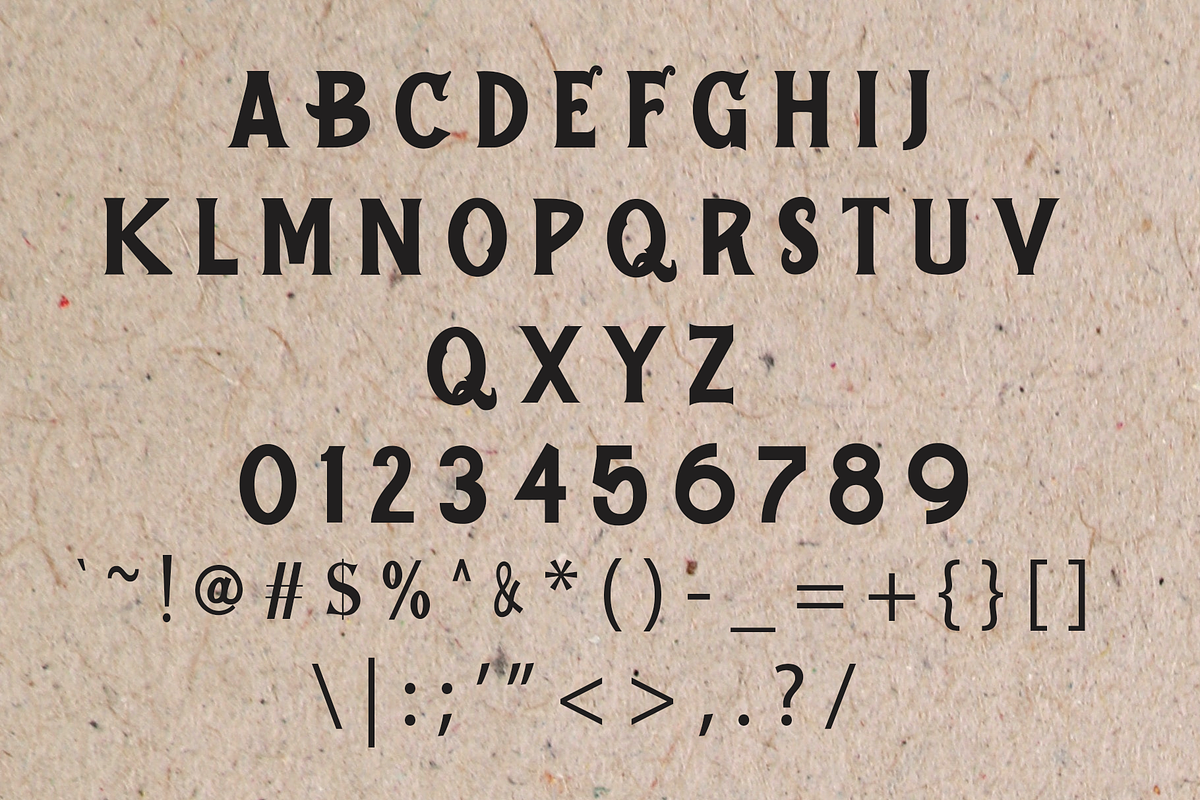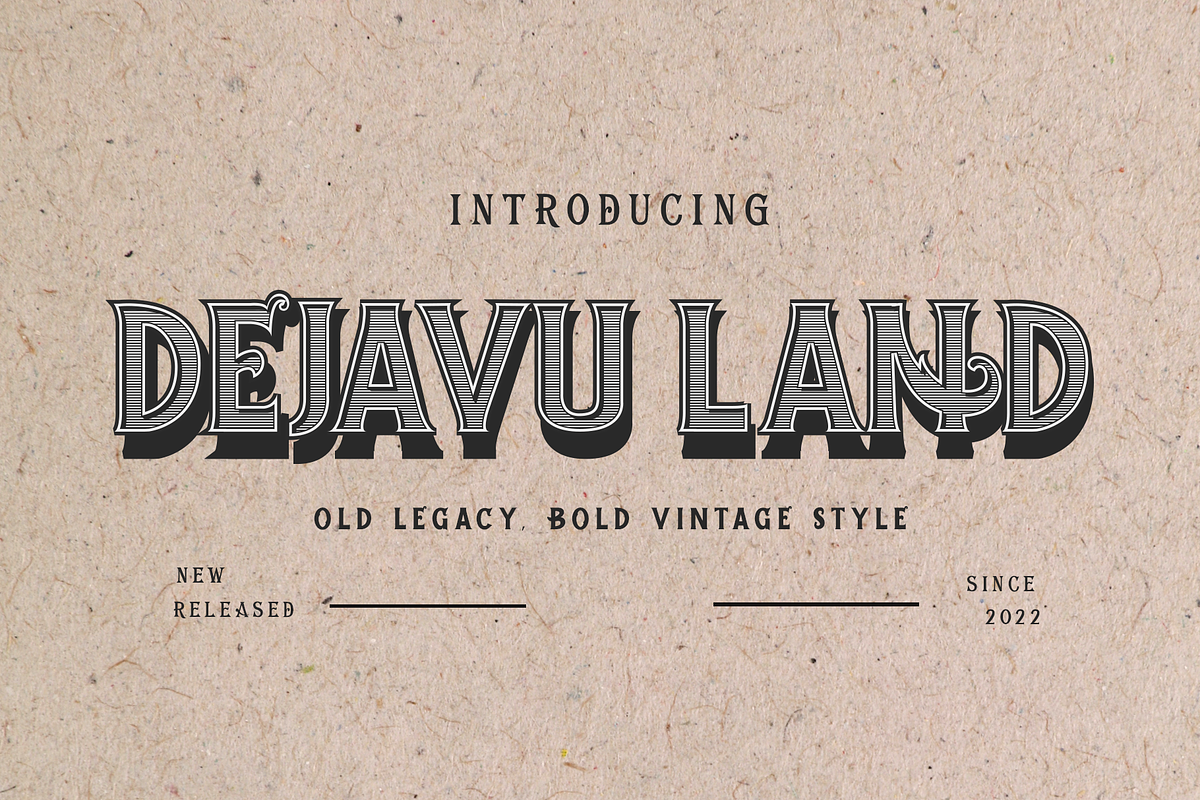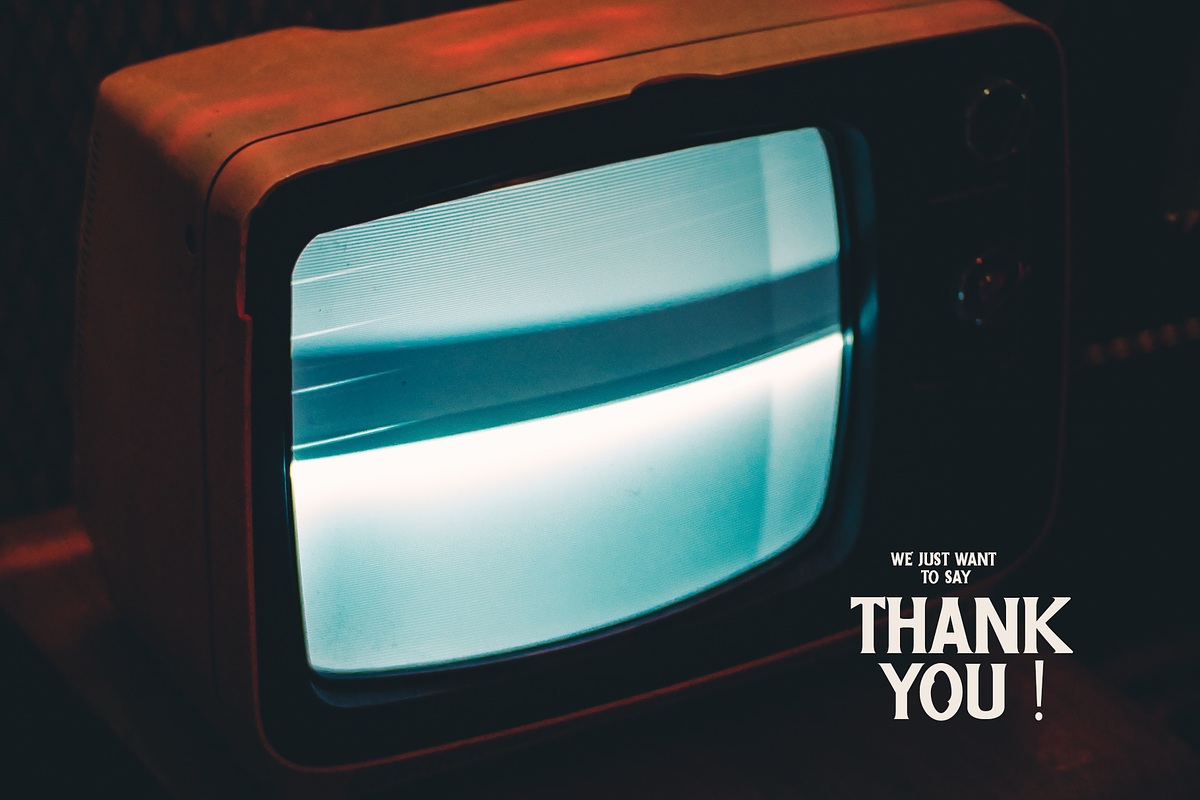
Dejavu Land - Vintage Font
Introducing Dejavu Land, an elegant, vintage, and beauty serif font. Its unique and antique feel. So perfect for you who needs a typeface for logo designs, magazine, social media, brochure, and many more.